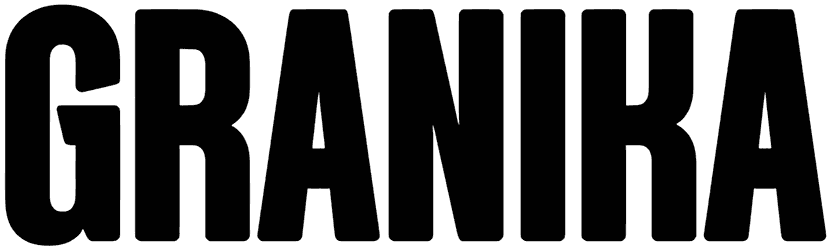
Granika Font
You may not have enough space in your design for much further decoration, but at least you have a great condensed font with bold letters to make it work. Say hello to Granika, a modern font of RB that’ll be the highlight of your next typography project.
Maybe there’s nothing special about how Granika looks, but if you’re looking for clear communication with a trendy theme, its neat style can help you a lot in your mall posters and construction signs.